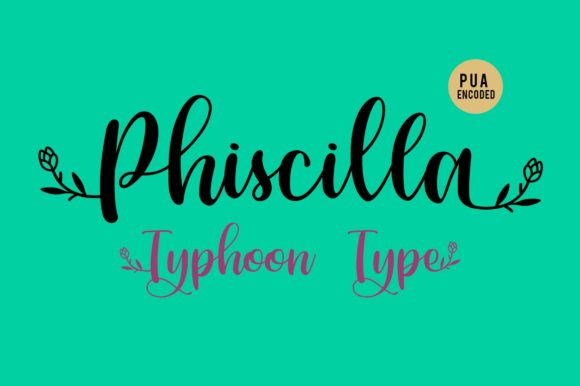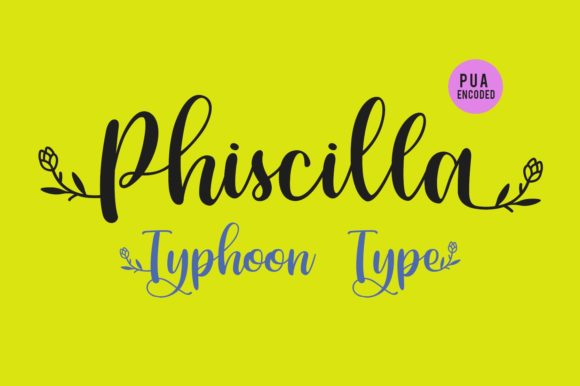
Introduction to Phiscilla Font
Phiscilla is a flowing handwritten font, described by an elegant touch, perfect for your favorite projects.
This font is PUA encoded which means you can access all of the glyphs and swashes with ease It features a varying baseline, smooth lines, gorgeous glyphs and stunning alternates.
Key Features of Phiscilla Font